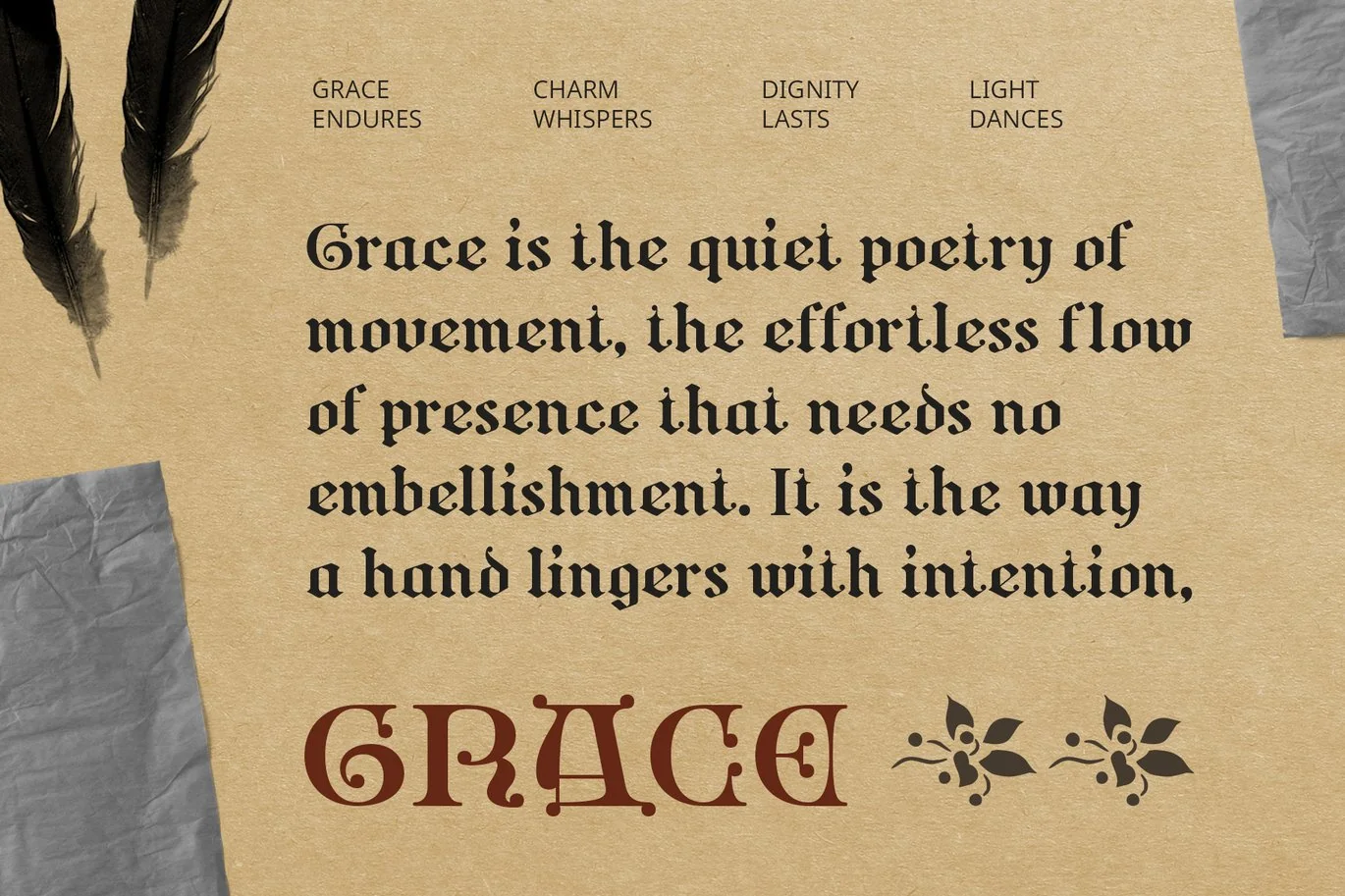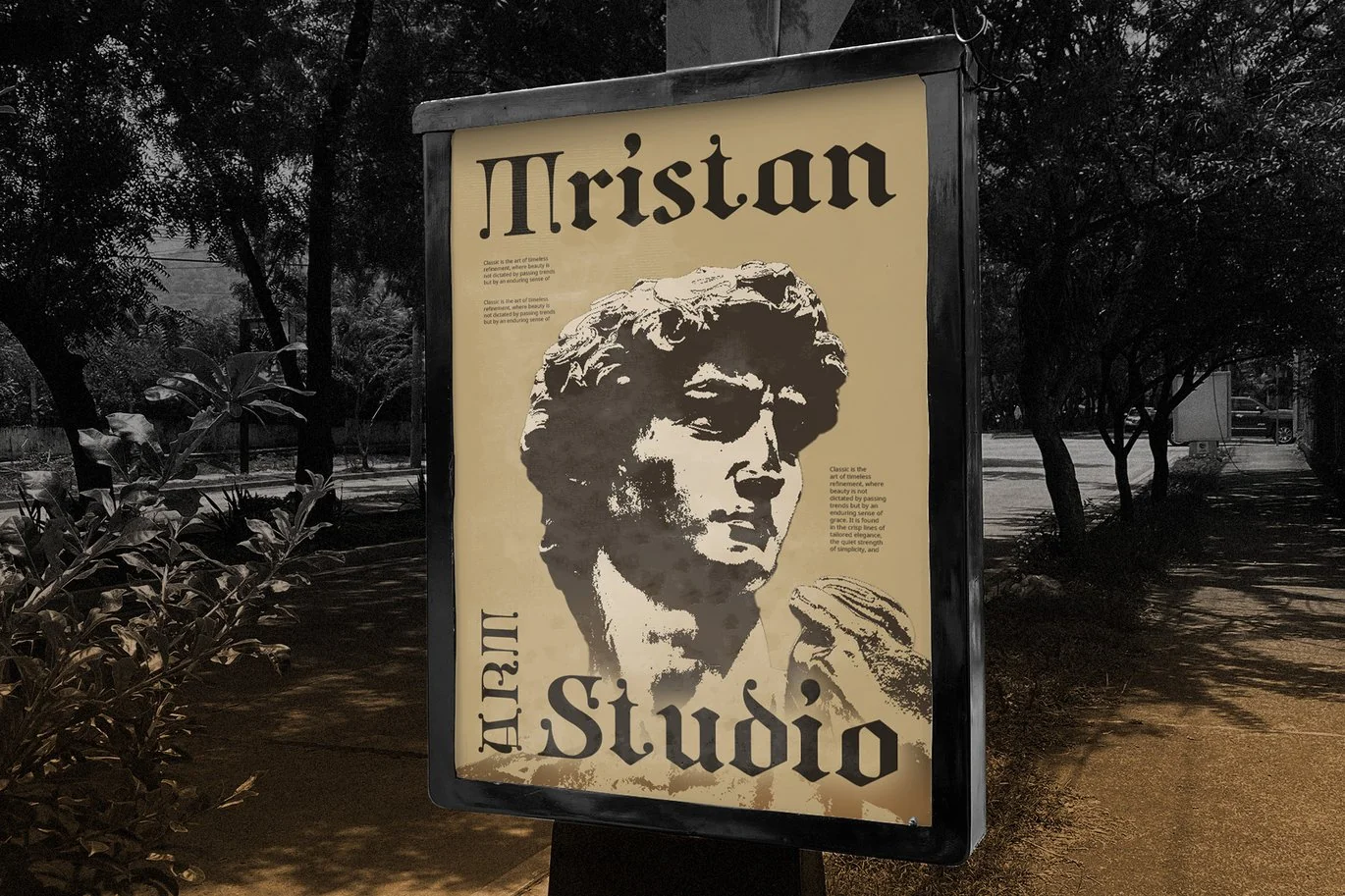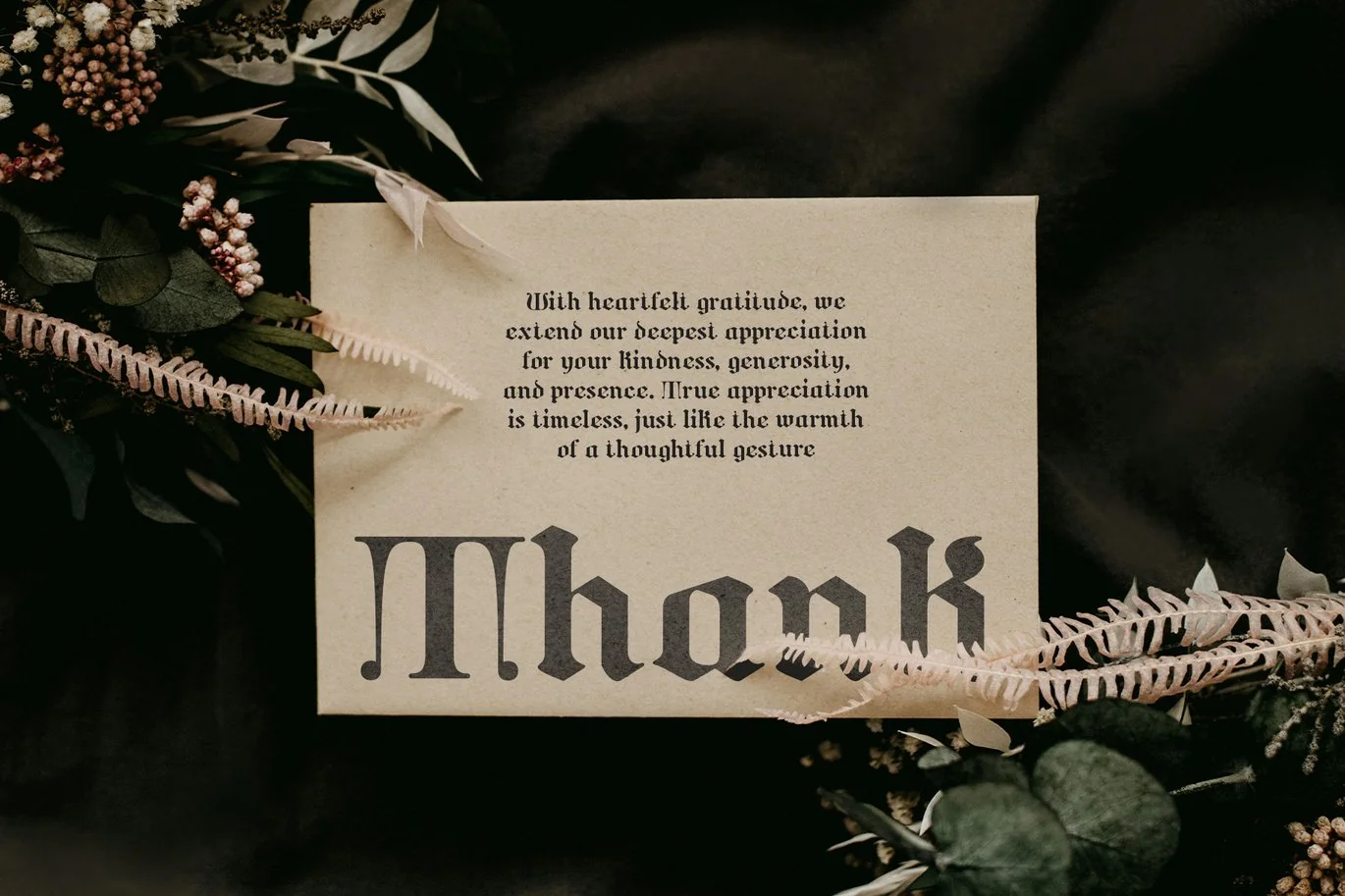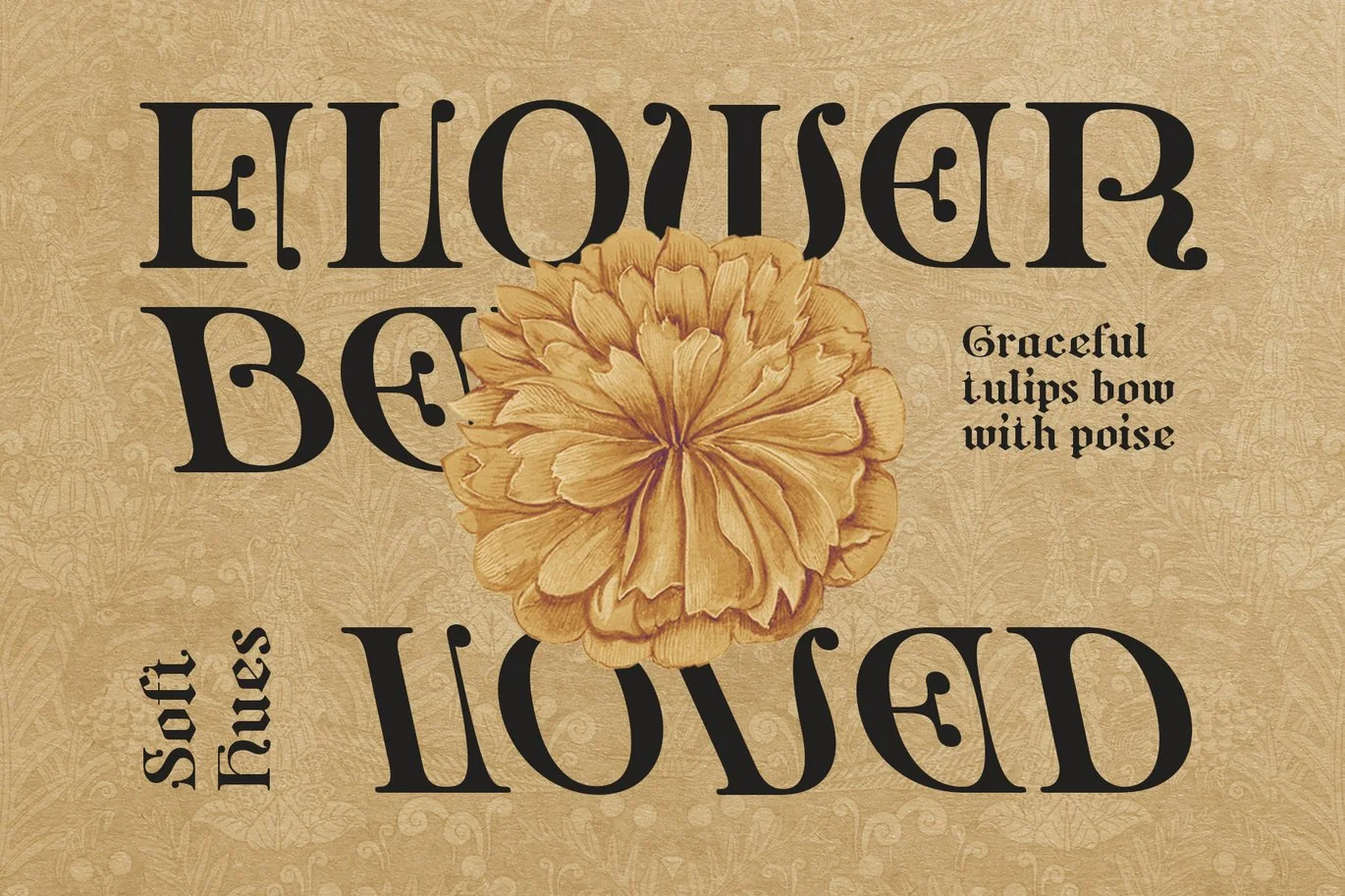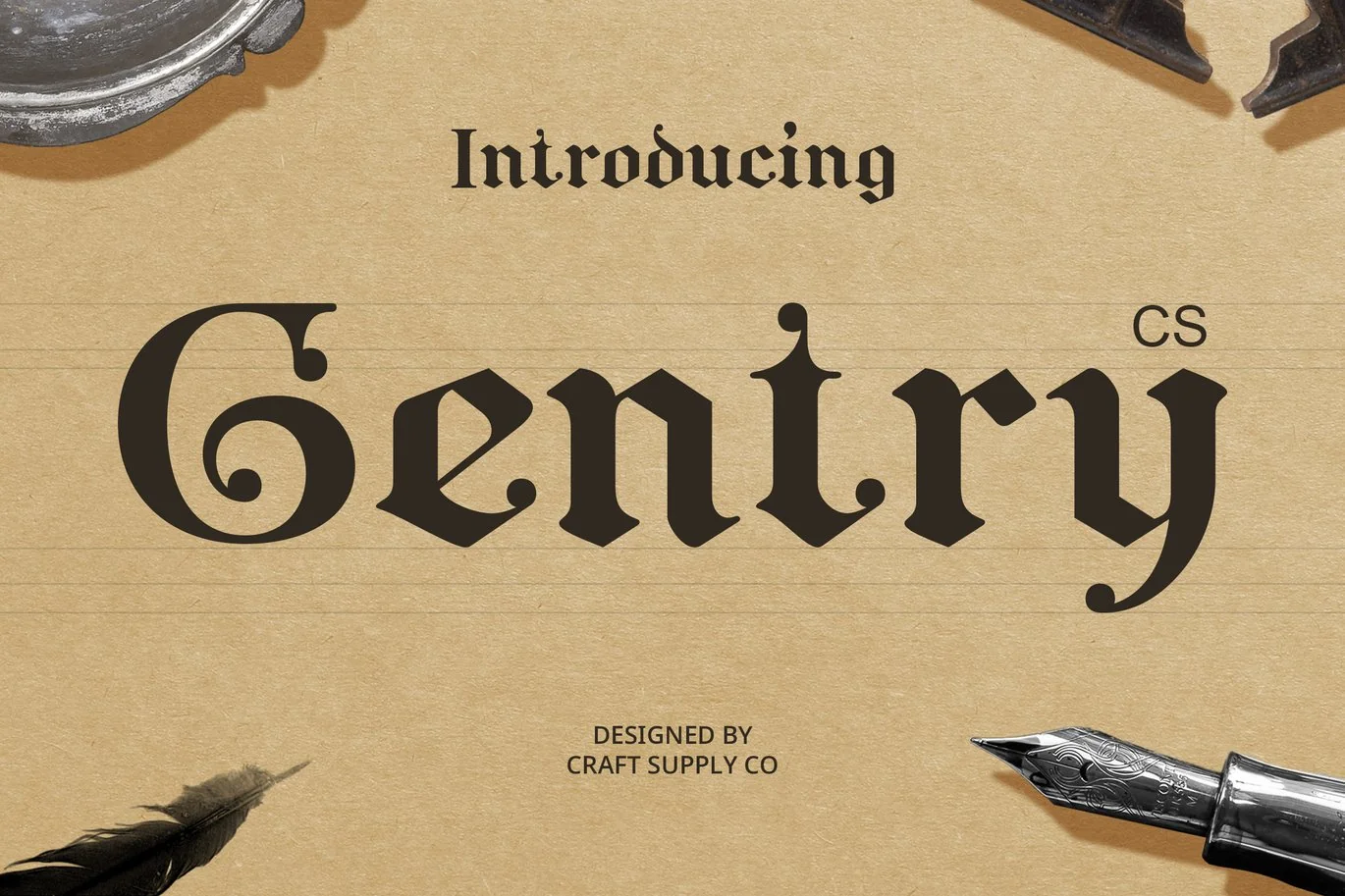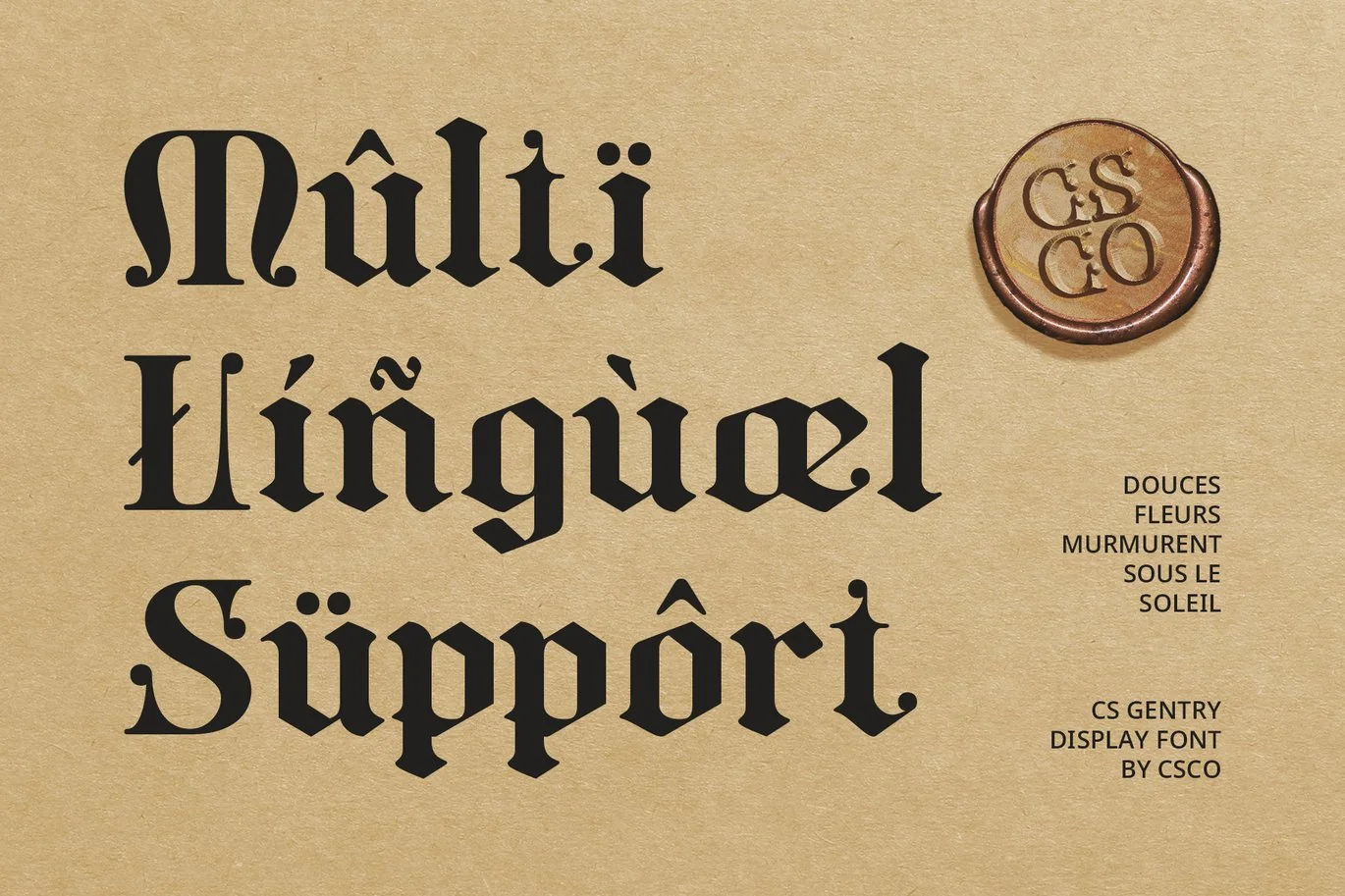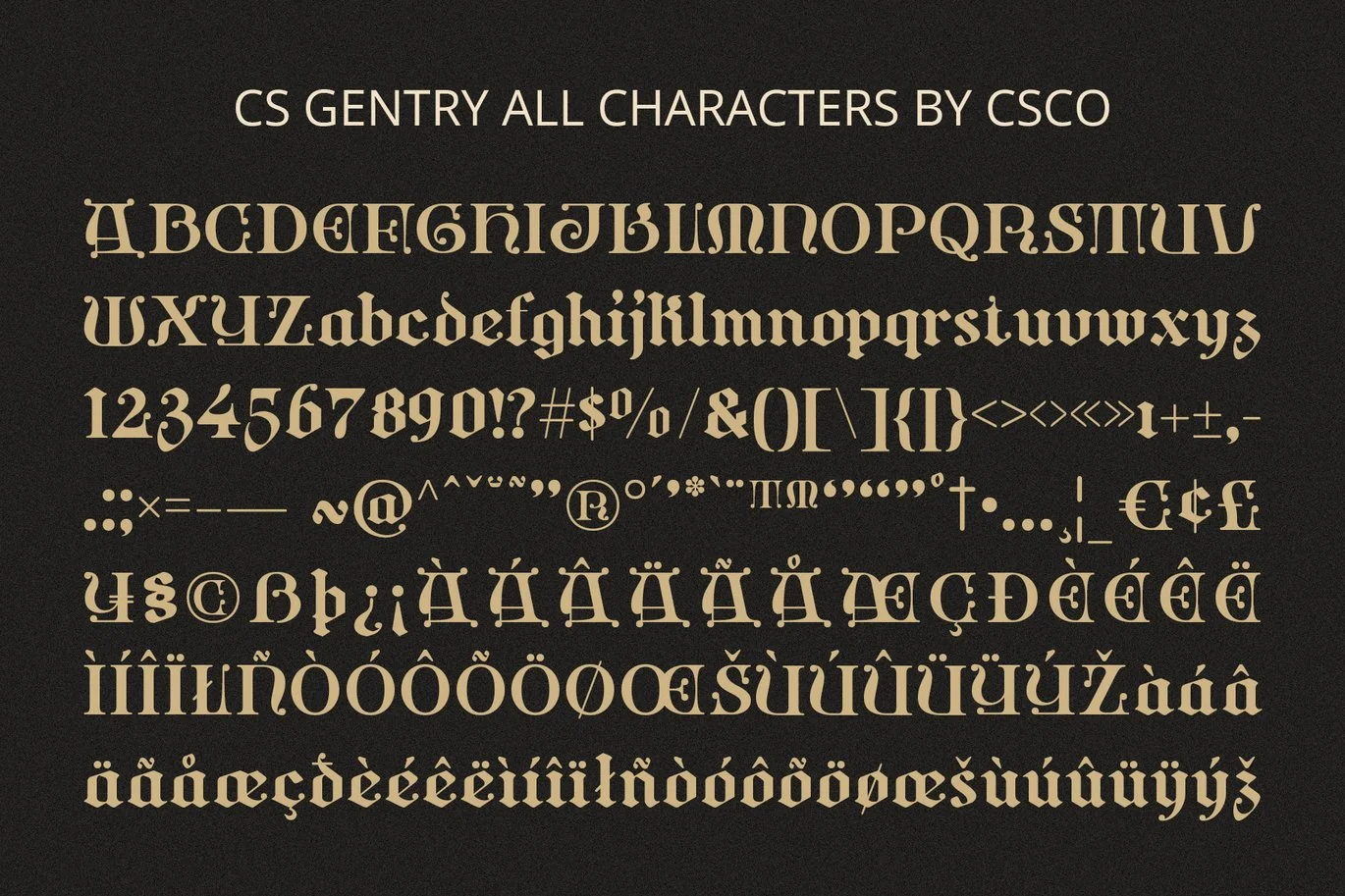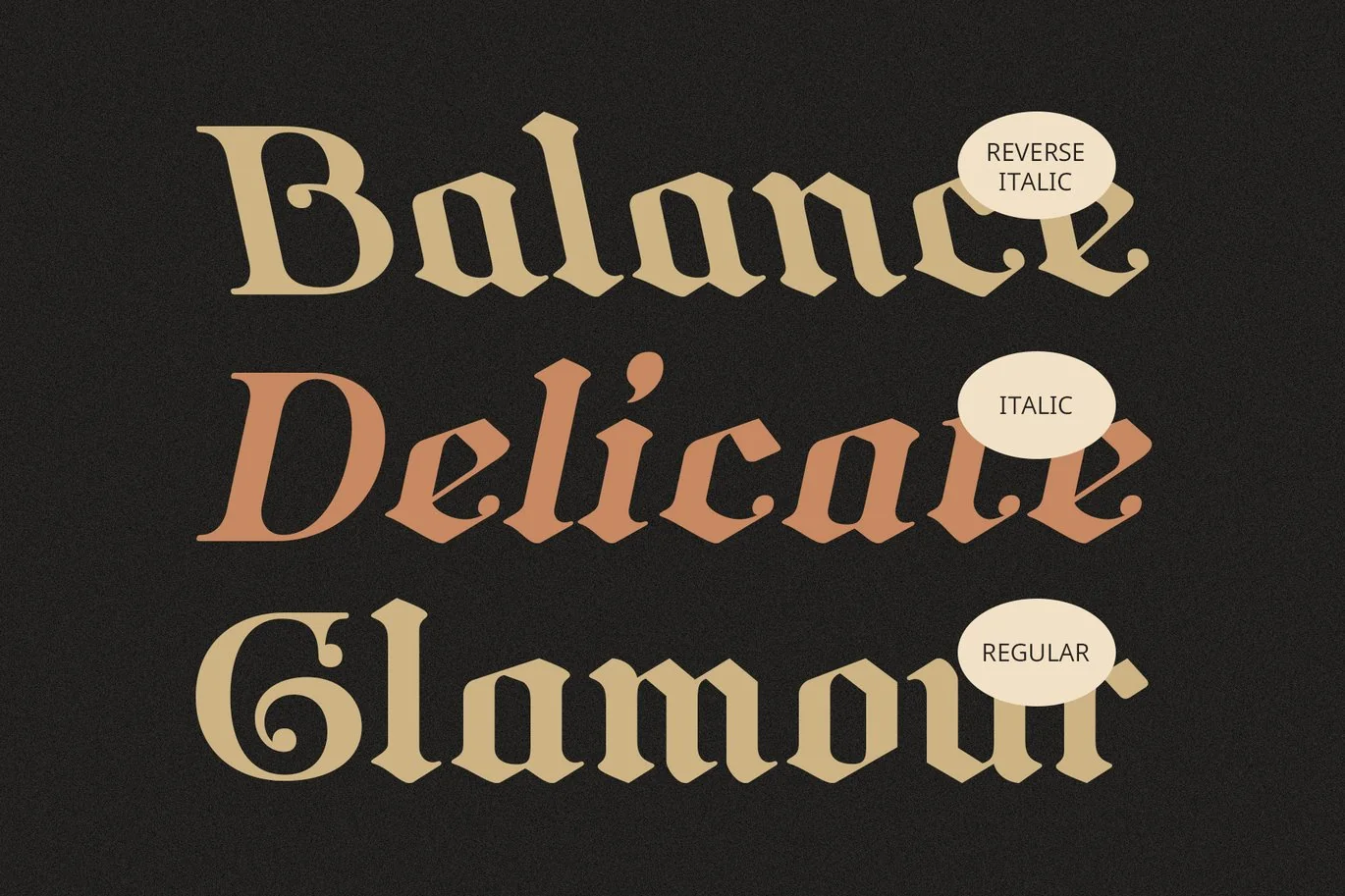
Gentry – Gothic Uncial Font
CS Gentry – Gothic Uncial Font: A Captivating Blend of Medieval Design and Calligraphy
Classic Gothic Elegance
CS Gentry is a Gothic Uncial display font that beautifully combines medieval design influences with the refined art of traditional calligraphy. Its letterforms feature a delicate balance of curved lines and varying stroke thicknesses, which imbue the font with both elegance and authority. The curves and sharp edges create a unique and enchanting presence that is both timeless and captivating, ideal for designs looking to evoke a sense of history and sophistication.
Inspired by Ancient Handwriting
Drawing inspiration from ancient manuscripts and sacred texts, CS Gentry’s letterforms are crafted to reflect the fluidity and intricacy of traditional handwriting. This gives the font an antique and artistic touch, evoking images of medieval tomes, historical documents, and spiritual writings. The careful attention to detail in its design makes it perfect for projects that wish to highlight the beauty of the past while maintaining a modern appeal.
Perfect for Historical and Cultural Themes
CS Gentry is well-suited for designs centered around historical, sacred, or classical themes. Whether you’re creating book covers, album artwork, invitations, or branding, this font elevates any project with its refined, authoritative style.